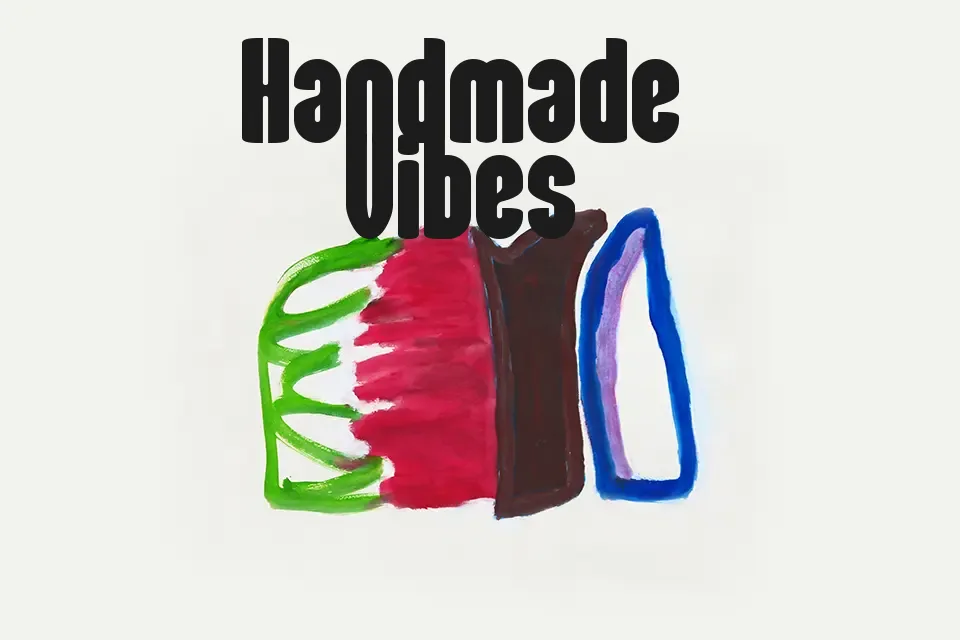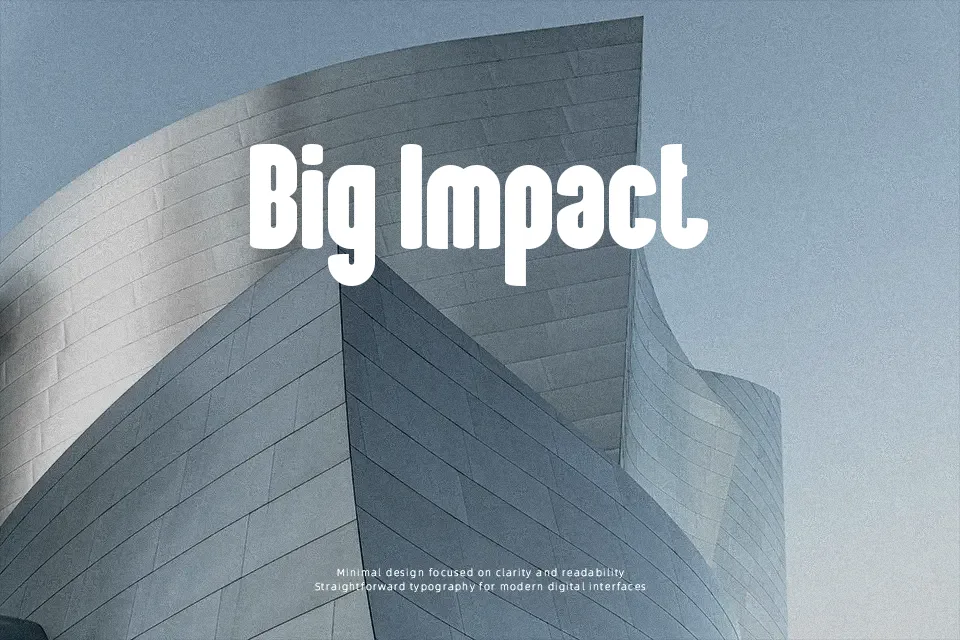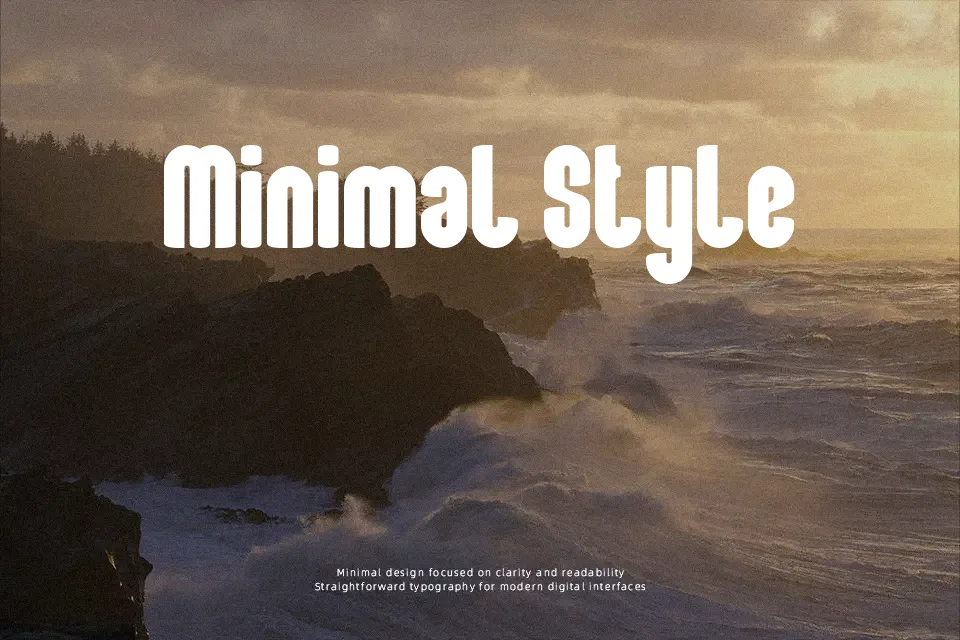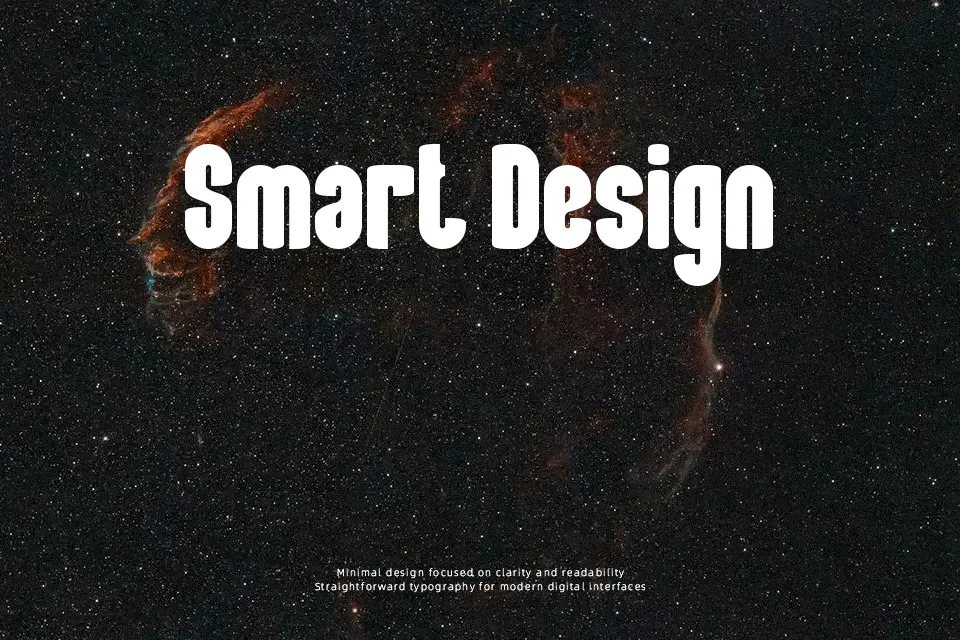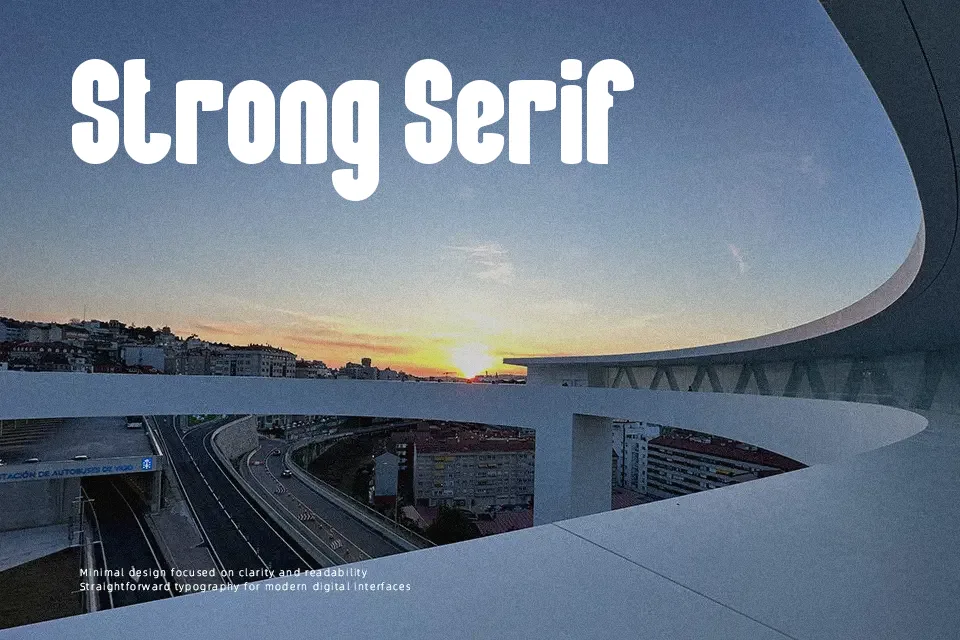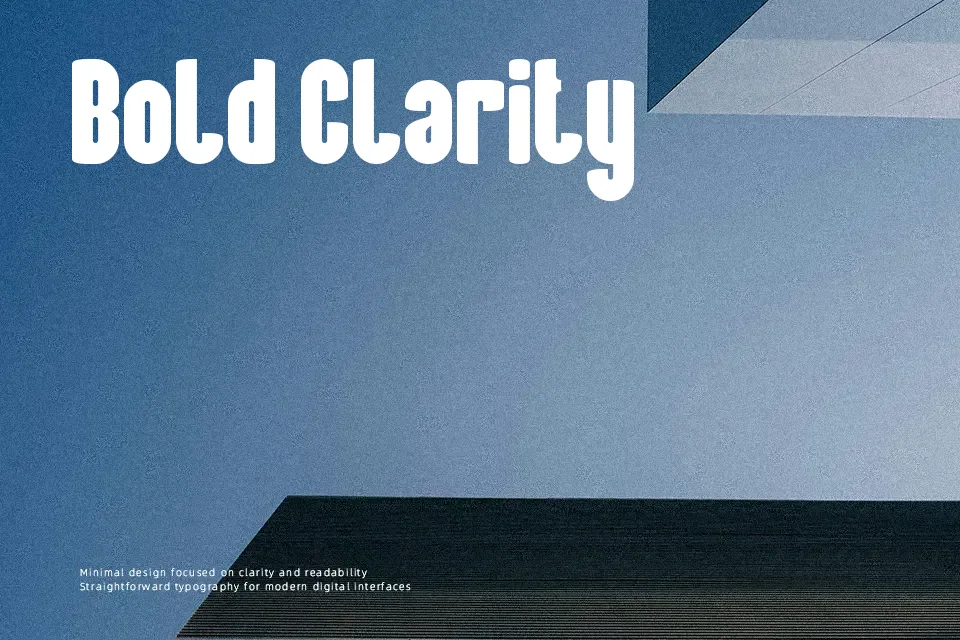
Cartoon Animation Font
Cartoon Animation Font features exaggerated, extra-bold stroke weights with rounded corners and tightly condensed proportions across its character set. The dense forms and heavy outlines create immediate focal points in large display settings, providing substantial impact for YouTube thumbnails, comic book covers, and gaming headers. Tight character spacing keeps words compact, though internal counter spaces remain narrow due to the extreme thickness of the letterforms. As a result, legibility drops significantly when scaled down to small sizes, making the typeface less suitable for multi-line body text or dense paragraphs. For punchy, short phrases, the design offers strong visual rhythm and distinct presence.
Best For: animated video titles, children’s book covers, comic book logos, toy packaging
Not Ideal For: continuous body text, dense mobile UI labels, corporate documentation, small print captions